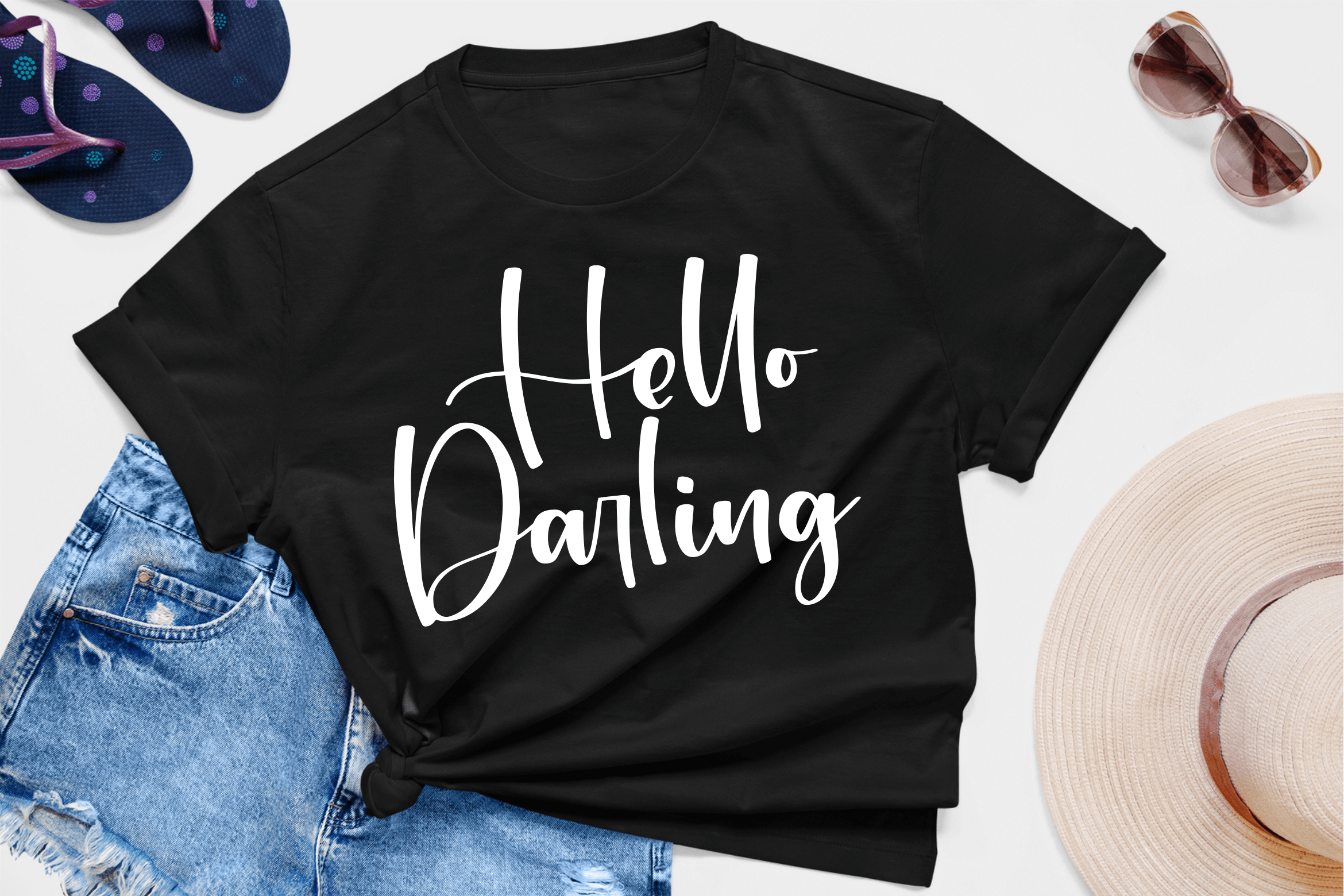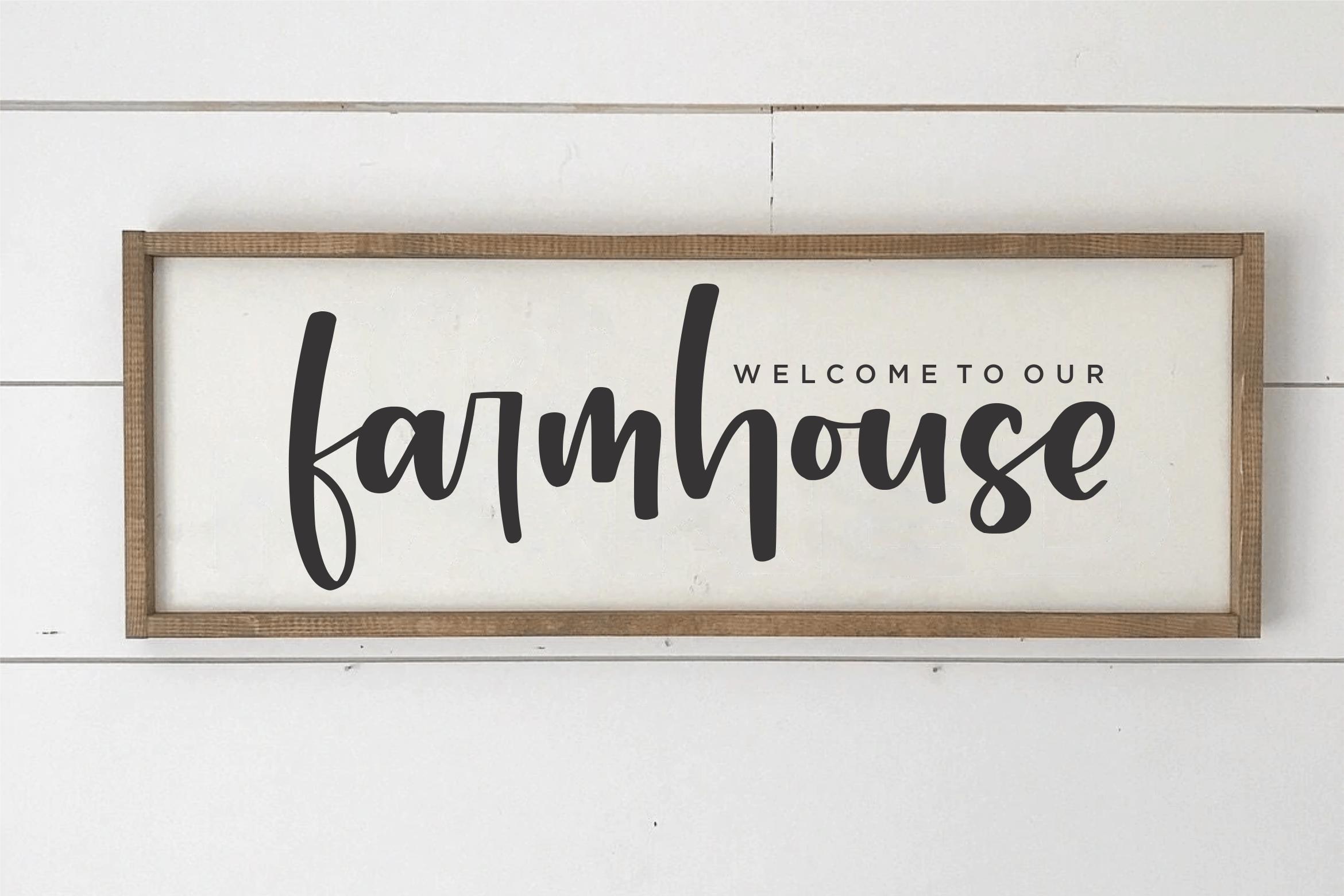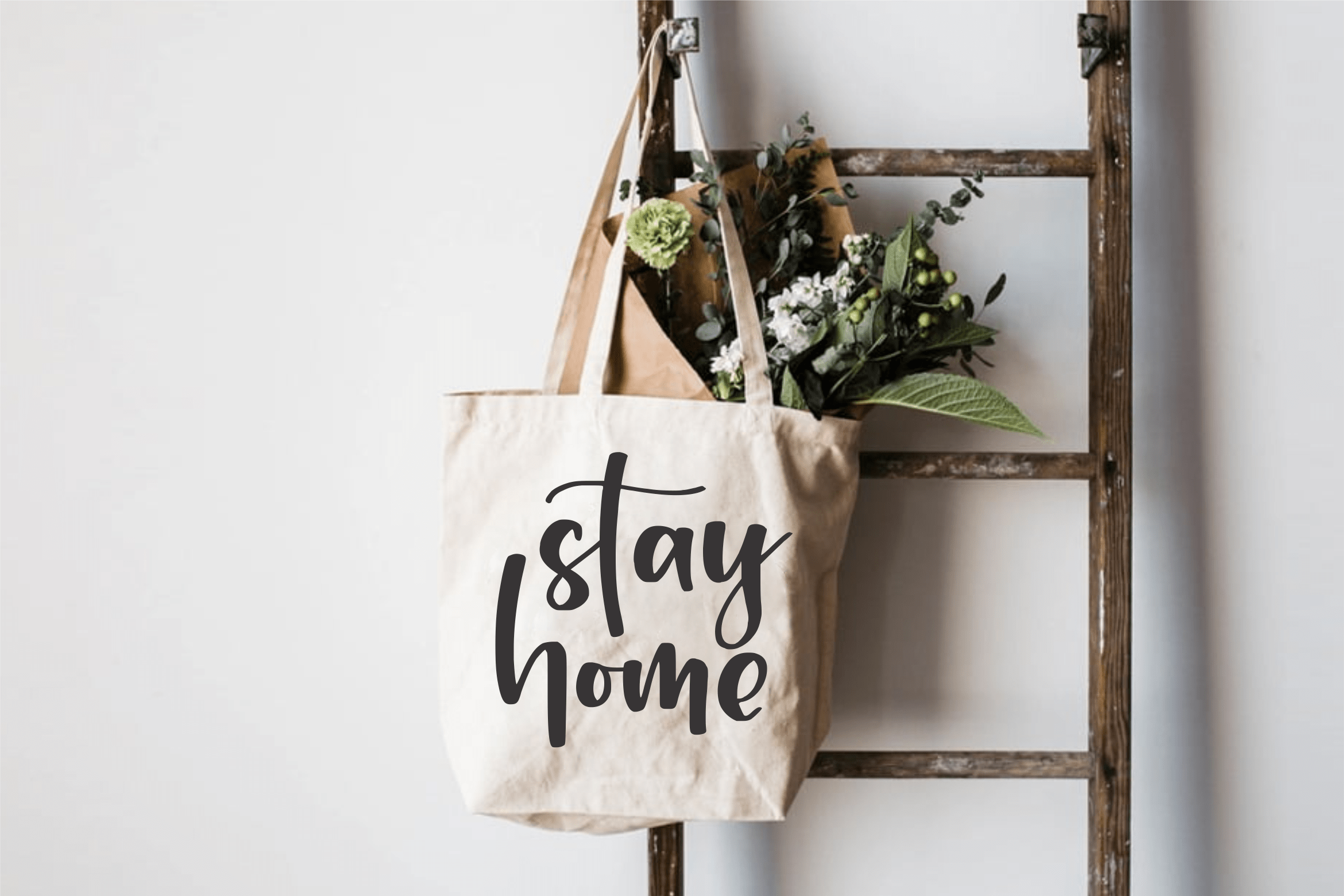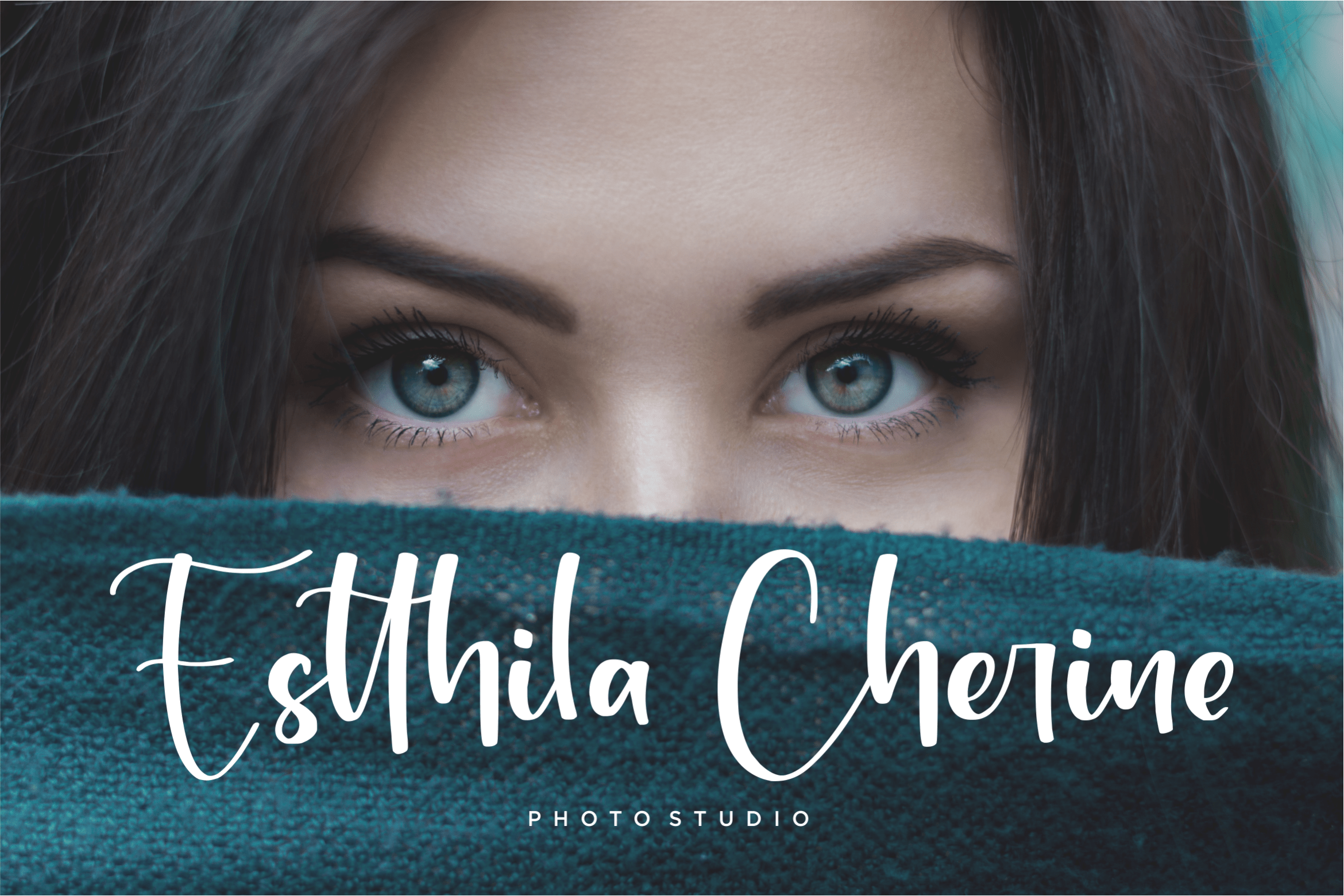
Brightfarm Font
Brightfarm Script Font
It’s a modern handwritten script. This font looks natural, stylish, and perfect for any extraordinary project that requires a handwritten feel. Its versatile style looks lovely on wedding invitations, thank you cards, quotes, greeting cards, logos, business cards, and every other design which needs a customized touch.